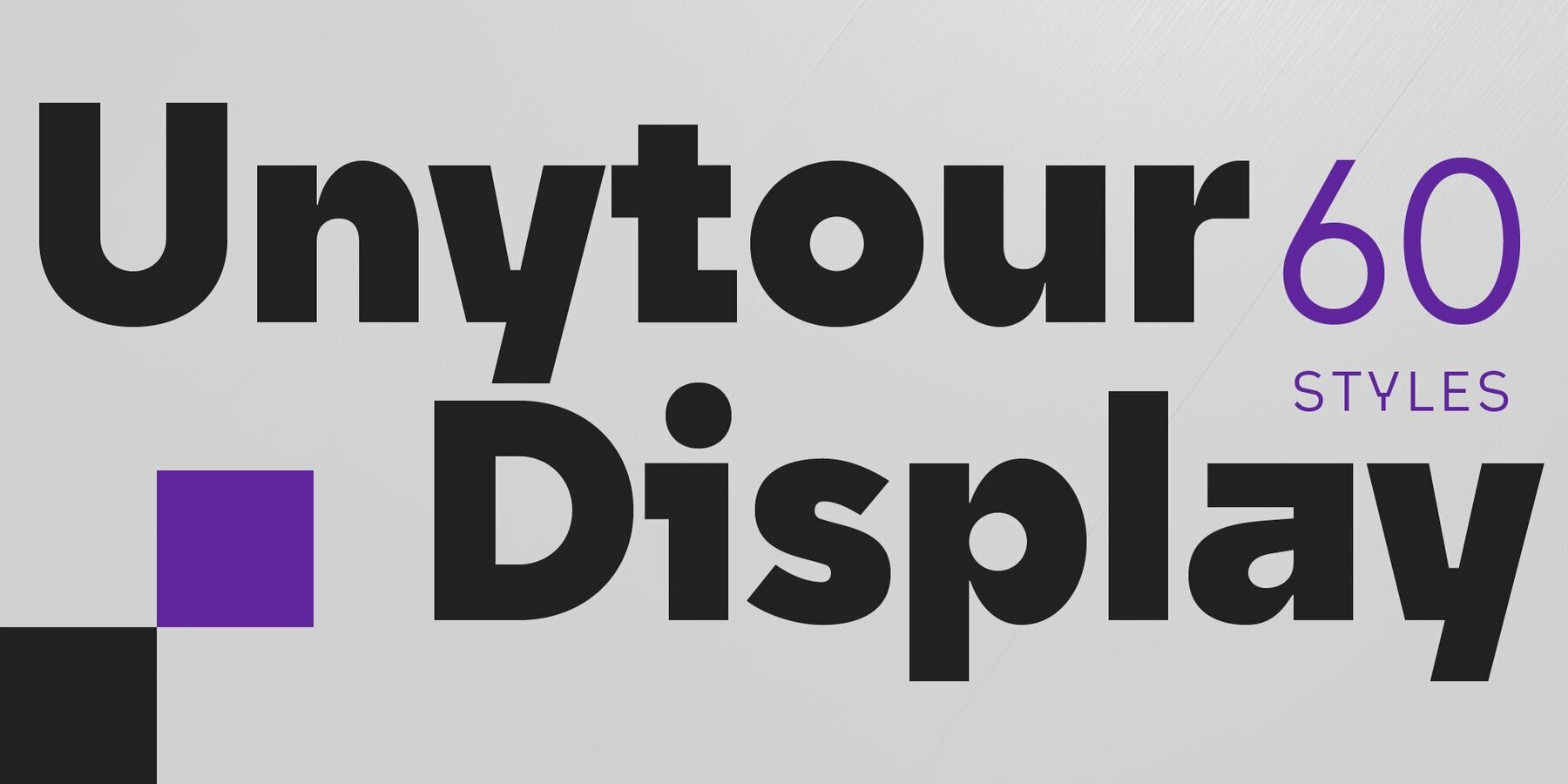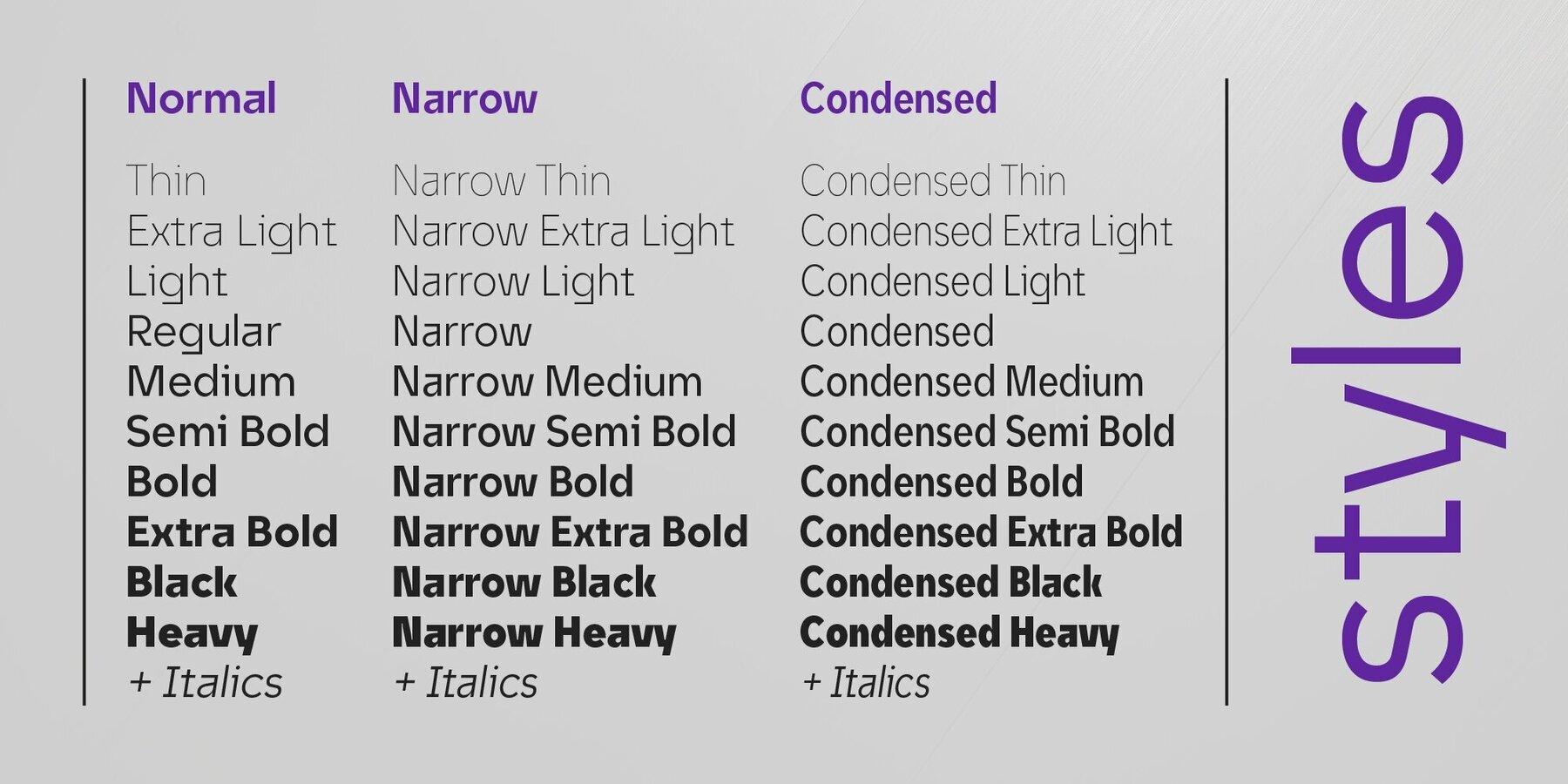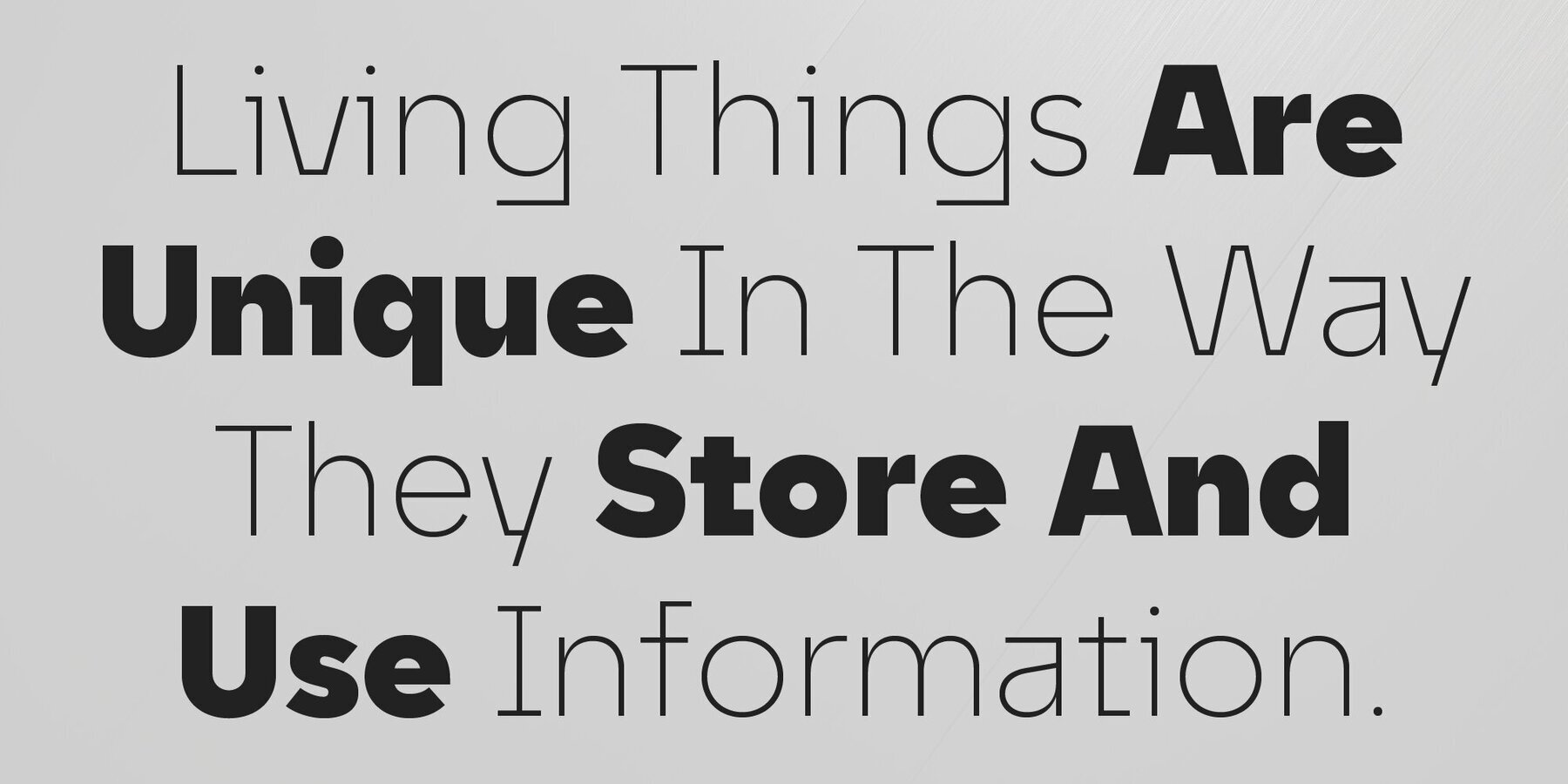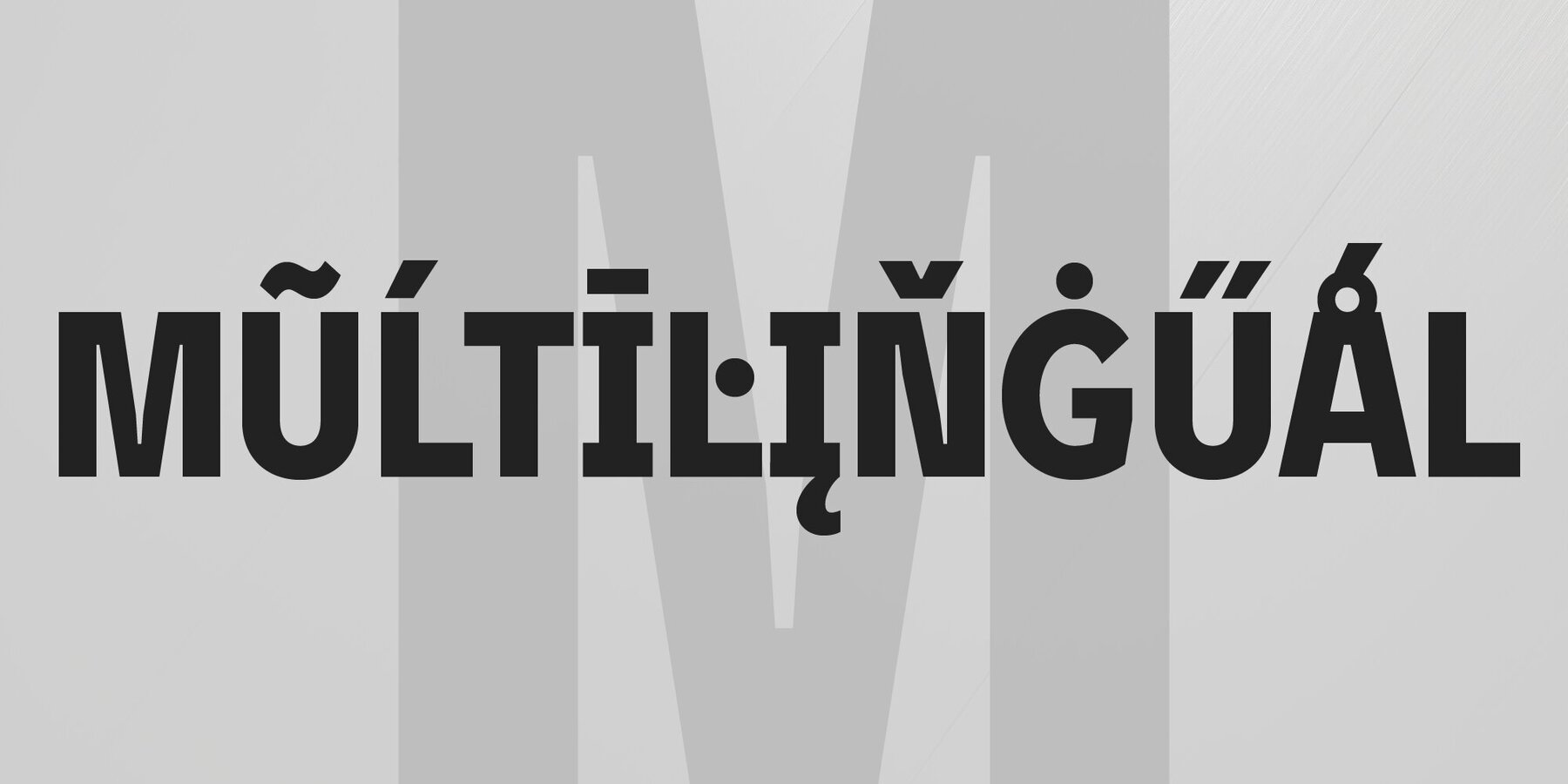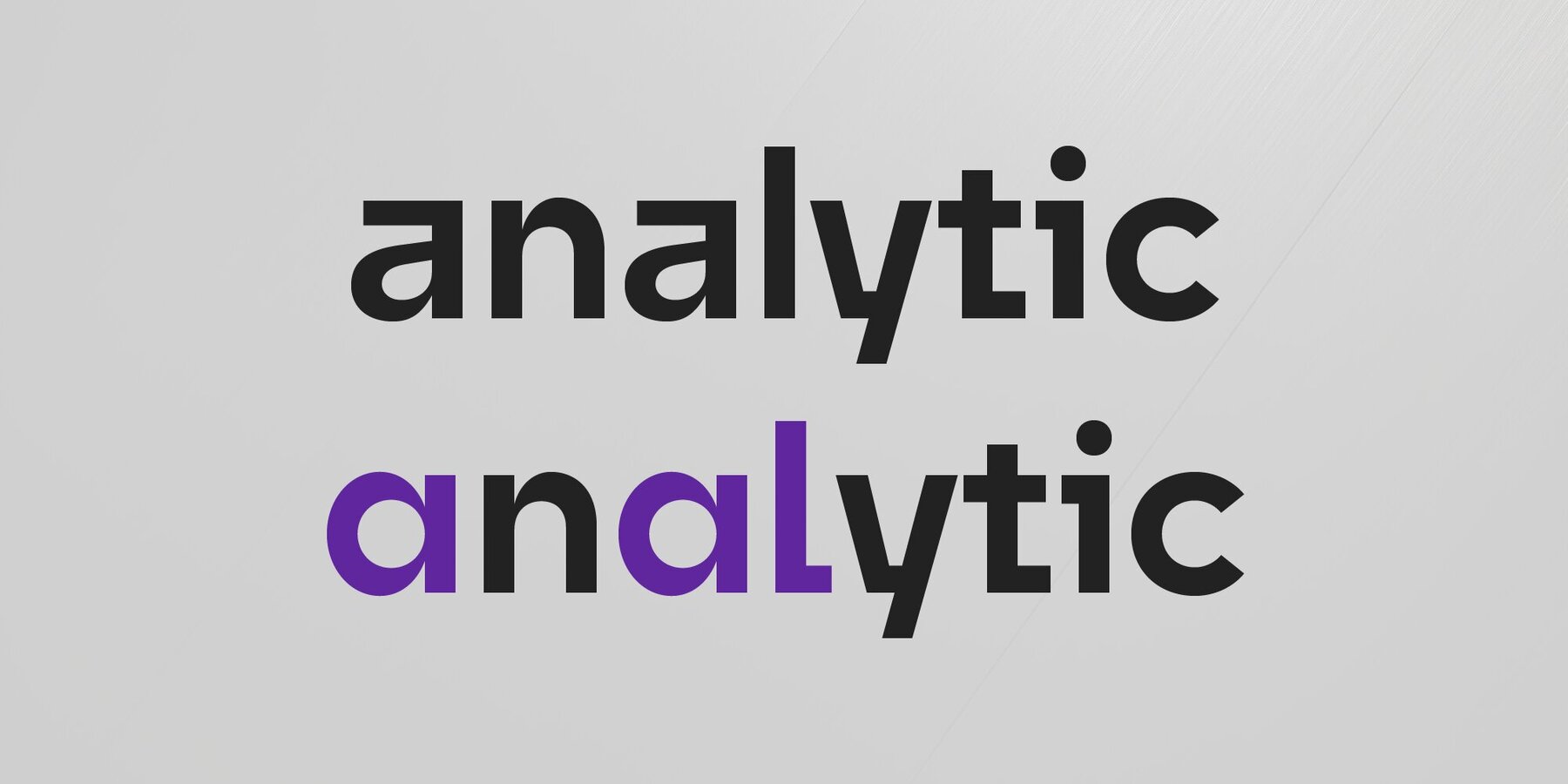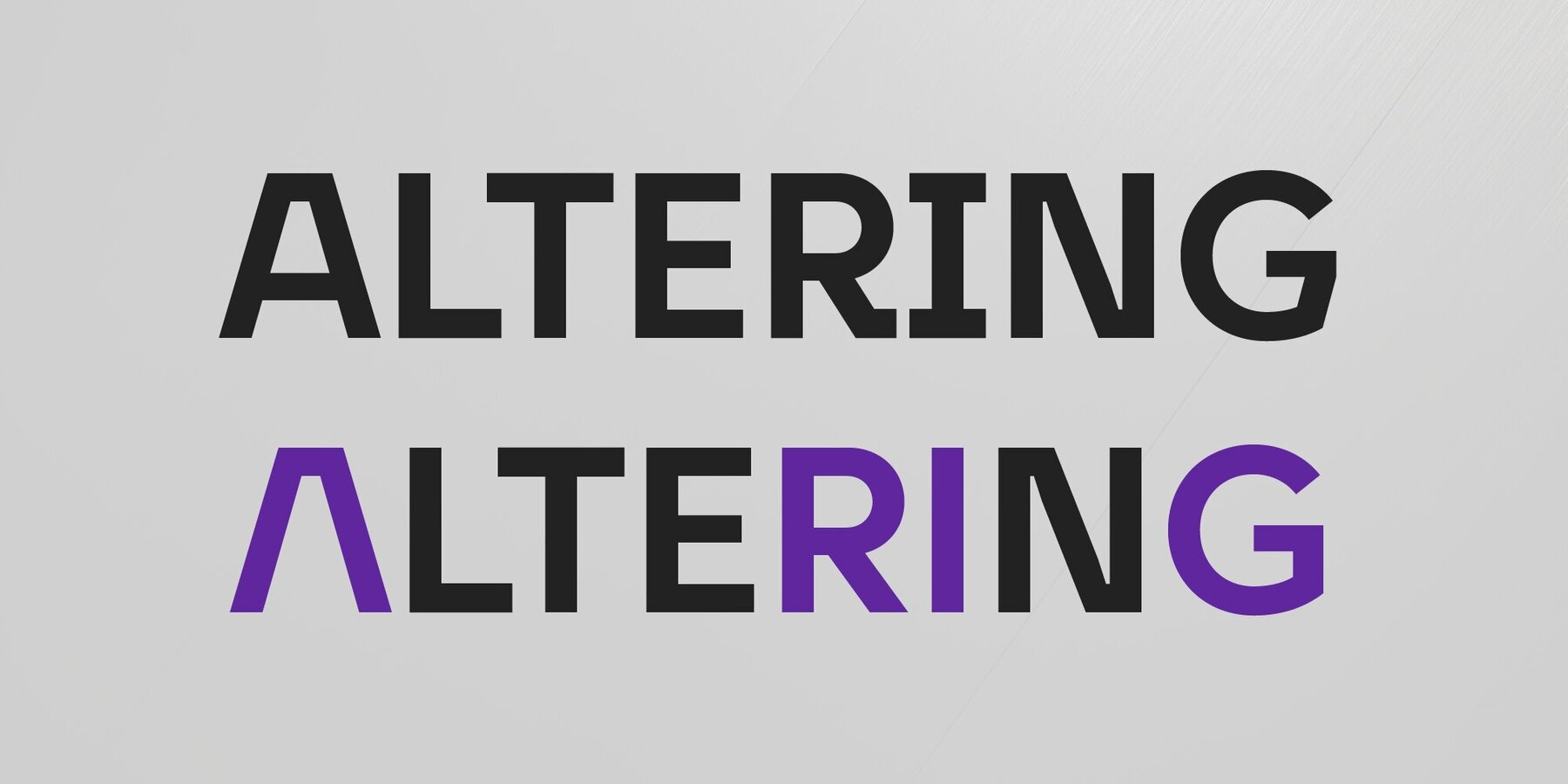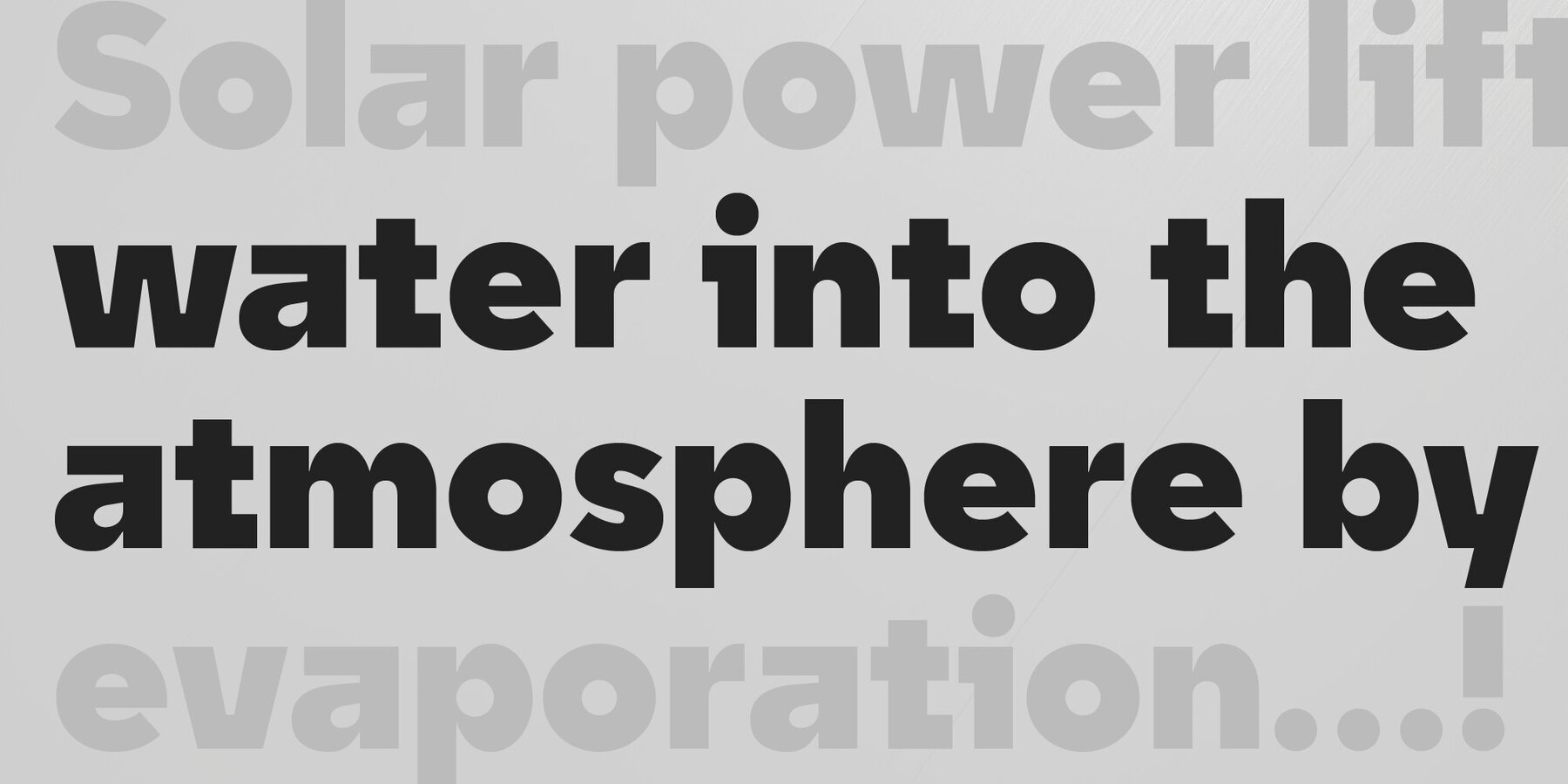
Unytour Display Font
Unytour Display is a modern sans-serif font family of 36 fonts. It includes nine weights with italics from Extra Light to Heavy. Each weight includes alternatives (A,G,I,R,a,l) and OpenType features. Unytour Display features excellent legibility for print, as it does for reproduction on TV screens and more.
Savchuk Mykola began his career as a graphic designer. Over time, he had a desire to create a font that would reflect his view of typography. ‘They say that all ingenious things are simple, although unique. In my future projects, I want to reflect simplicity on the one hand and uniqueness on the other, providi...